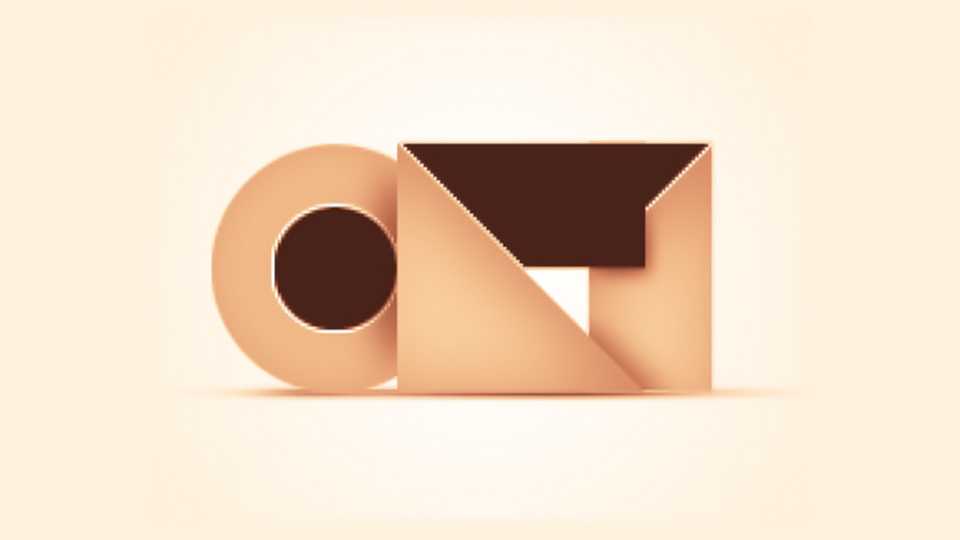
Download ORI font, a geometric display typeface specially created to design logotypes. Each letter and number is created in a square area composed of 4 same square – a square of 2*2, no real dimension with very geometric shapes.